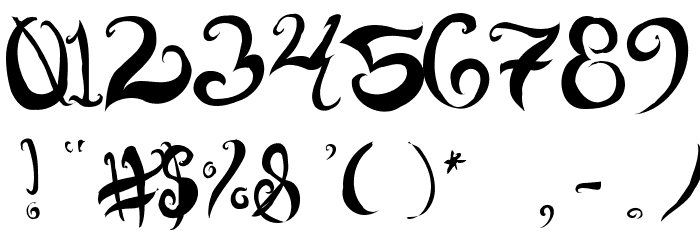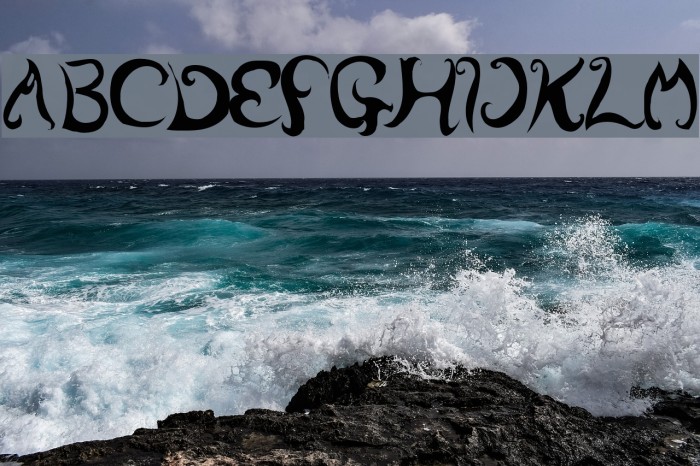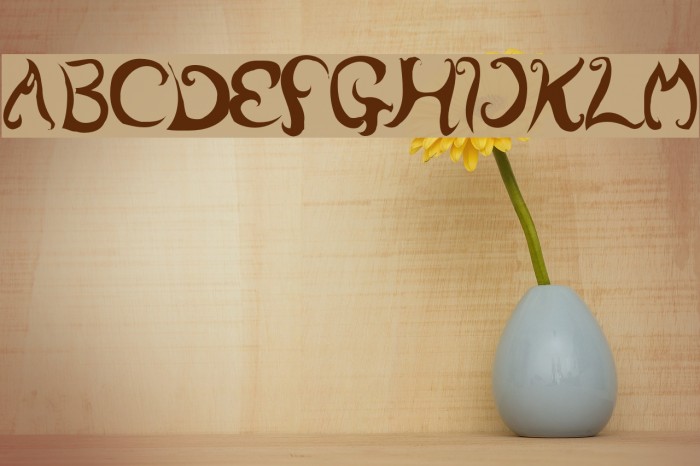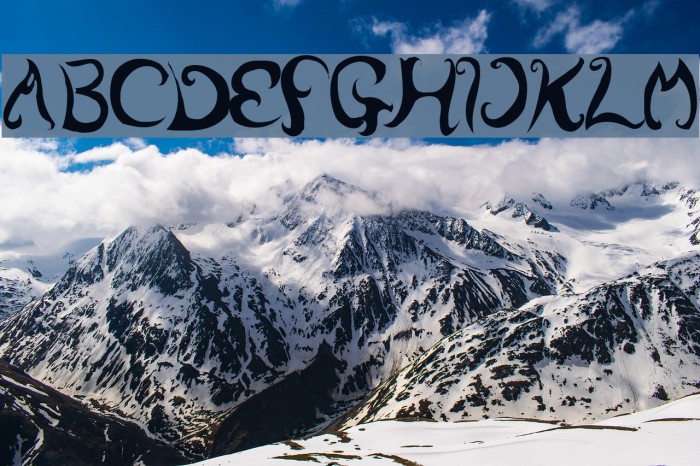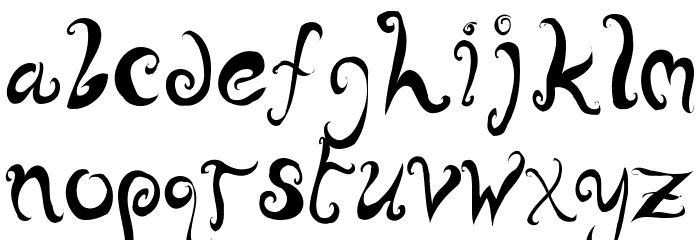
wurly fool Font
This font exhibits a whimsical and playful style, characterized by its curvy and exaggerated strokes. The letters have a fluid, almost dance-like quality, with each character featuring unique swirls and curls that give it a lively appearance. The uppercase letters are bold and dynamic, while the lowercase letters maintain a consistent flow with a touch of elegance. Numbers and special characters follow the same playful theme, making the font suitable for creative and artistic projects. The overall design is both eye-catching and memorable, perfect for capturing attention in a variety of settings.
A whimsical and playful font with curvy, exaggerated strokes and lively characters.
• Proposed Projects: Ideal for children's books, playful branding, party invitations, and artistic posters.
• Category: Decorative/Display
• Overall Style: Decorative
• Use Case: Headlines, Logos, Posters